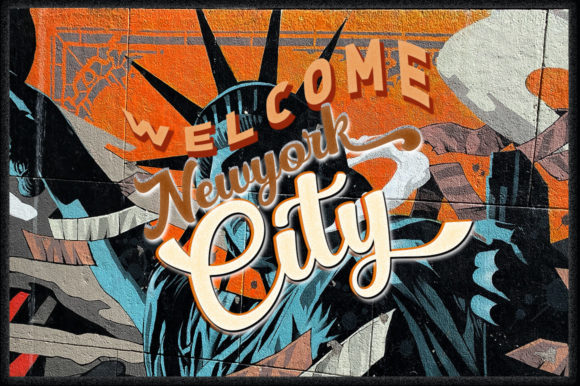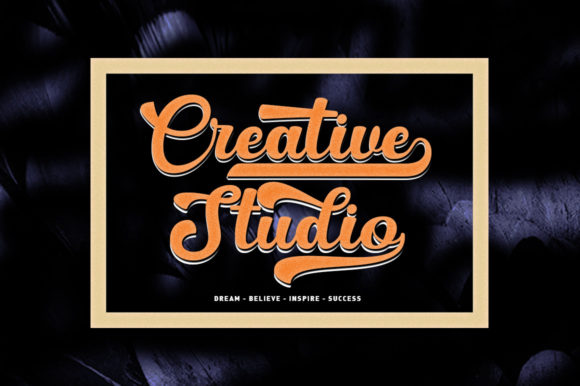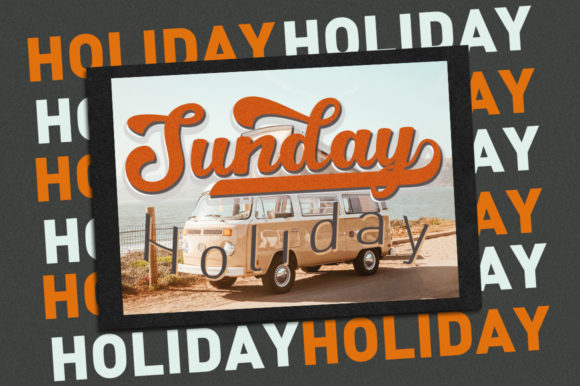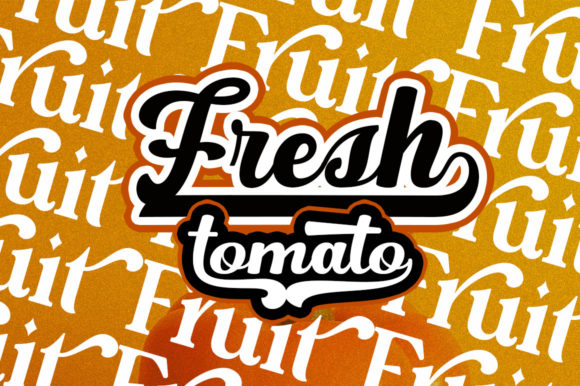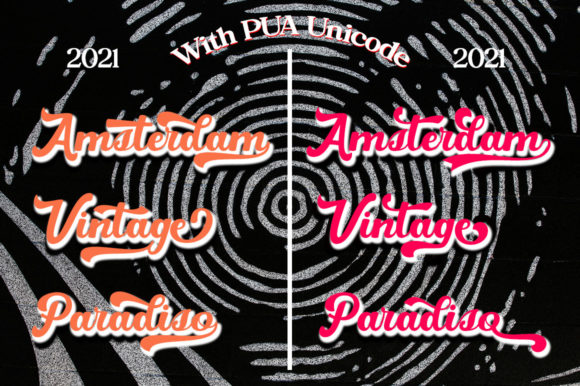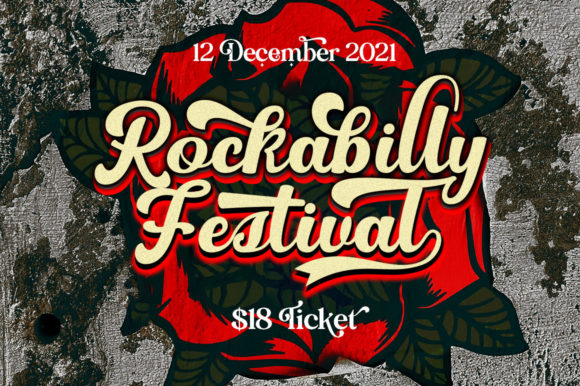
Introduction to Rigular Script Font
Have you ever found yourself scrolling through a design blog, searching for the perfect font to elevate your creative project? You land on a stunning logo with a bold, handwritten script that immediately grabs your attention. That’s the magic of the Rigular Script Font – a gorgeous and bold handwritten font that’s sure to give your headlines and logotype projects a retro touch.
Whether you’re a seasoned designer or just starting out, this font is a valuable design resource that’s sure to take your creative projects to the next level. With its high-quality design and PUA encoded features, you can easily access all of the glyphs and swashes to create unique and eye-catching designs. Imagine being able to customize your designs with a transparent background and intricate details – it’s a game-changer for any creative project.
Key Features of Rigular Script Font
- High-quality font design suitable for various creative projects, including wedding invitations, logos, and branding materials.
- Features a unique, elegant script style that is perfect for adding a touch of sophistication to any design project.
- Includes a comprehensive character set, covering a wide range of languages and special characters.
Honest Review: Rigular Script Font
I recently stumbled upon the Rigular Script Font and I’m excited to share my thoughts on this design resource. As a designer, I’m always on the lookout for high-quality fonts to enhance my creative projects.
What works well with the Rigular Script Font is its elegant and refined aesthetic. It’s perfect for adding a touch of sophistication to your designs. The font is also highly versatile, suitable for a wide range of creative projects, from wedding invitations to branding materials.
- ✨ Elegant and refined aesthetic
- ✨ Highly versatile
- ✨ Suitable for various creative projects
Overall, I’m impressed with the Rigular Script Font’s quality and design. While it has some limitations, it’s still a valuable addition to any designer’s toolkit. I highly recommend it for designers working on creative projects that require a high-quality script font.
Rigular Script Font is perfect for creative projects, such as invitations, posters, and social media graphics. It’s also great for designing branding materials, like logos and business cards. With its high-quality design and free download, Rigular Script Font is a must-have design resource for any creative project.
Is the Rigular Script Font suitable for print and digital designs?
Yes, the Rigular Script Font is designed to be versatile and suitable for both print and digital designs. Its high-quality design and transparent background make it an excellent choice for creative projects, such as branding, packaging, and website design. Simply adjust the font size and style to suit your design needs.